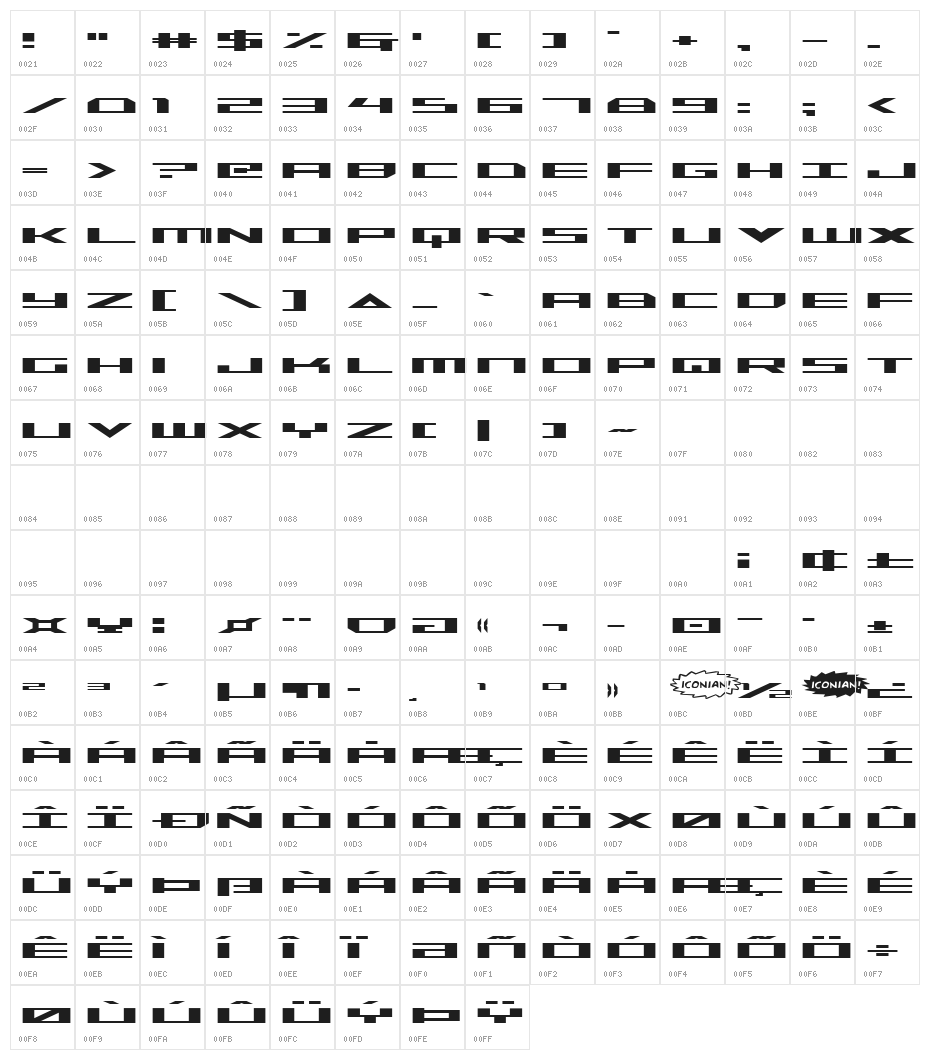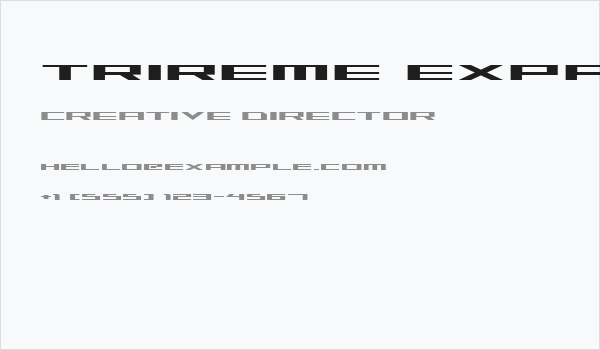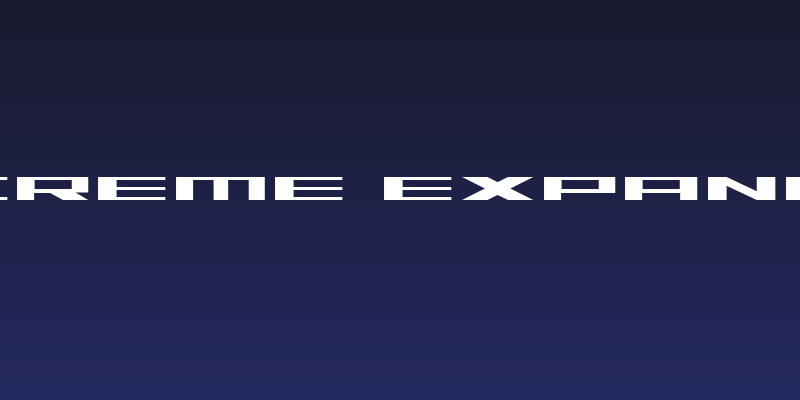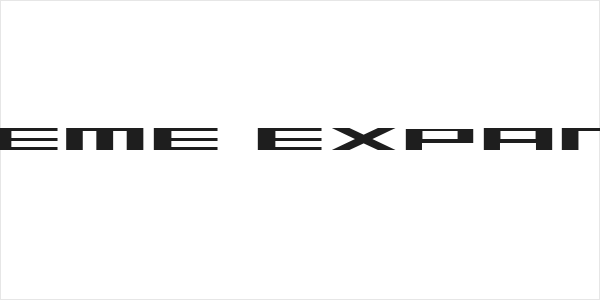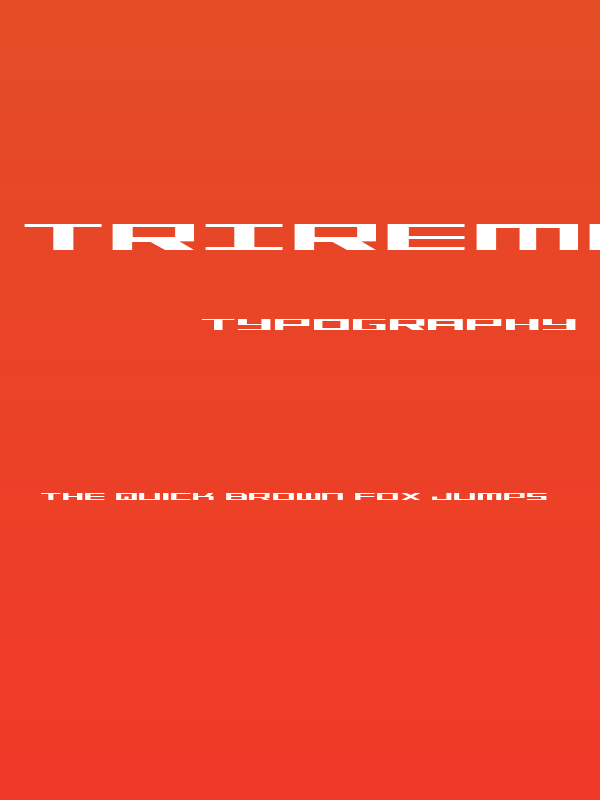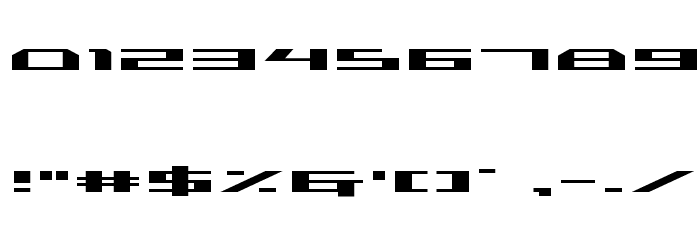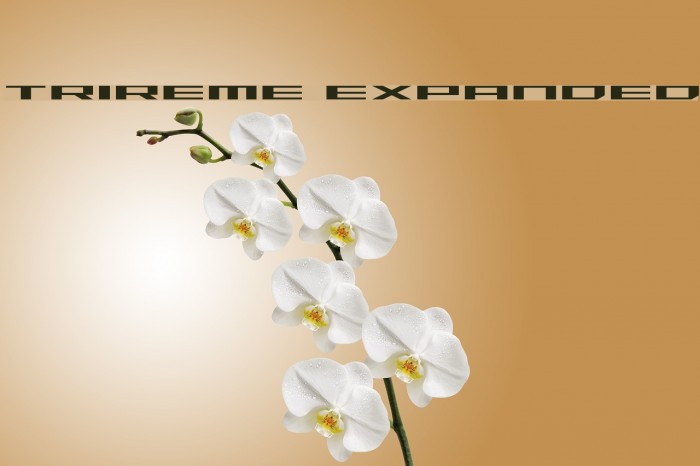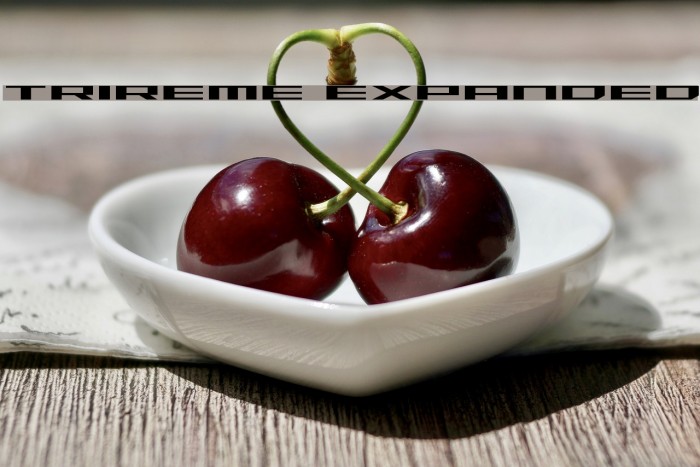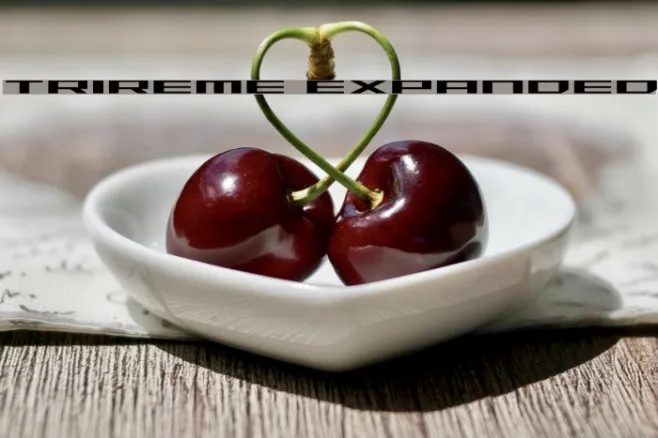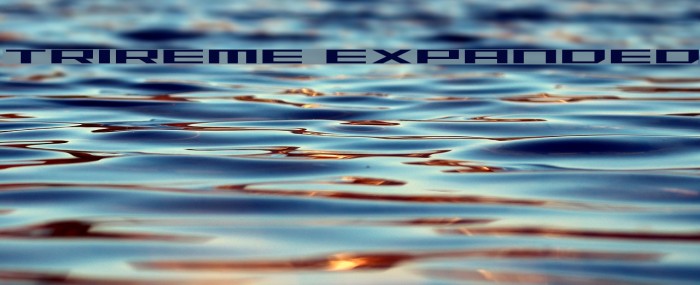
Trireme Expanded Font
Trireme Expanded Description
This font features a bold, futuristic design with a strong geometric influence. The characters are constructed with sharp angles and straight lines, giving it a distinctly modern and digital appearance. The uppercase and lowercase letters maintain a consistent height, contributing to a uniform look across the text. The numerals and special characters follow the same angular style, ensuring cohesion throughout. Its expanded width allows for a commanding presence, making it ideal for attention-grabbing headlines or titles. The font's unique style is reminiscent of digital or sci-fi themes, making it suitable for projects that require a modern and edgy aesthetic.
| Proposed Projects | Ideal for sci-fi themed posters, video game titles, tech branding, and digital media. |